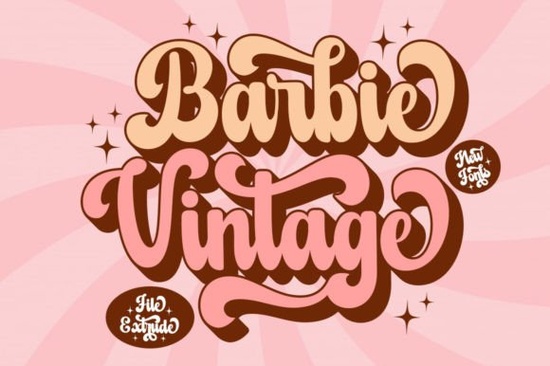
If you are looking for a retro typeface that adds instant depth to posters, logos, or print-on-demand merch, the Barbie Vintage Extrude Font gives you a ready-made shadow layer that saves hours of manual editing. Instead of building faux 3D effects in your design software, you get a clean, pre-drawn extrude that lines up perfectly with its matching base letters. This makes it especially useful for crafters, small shop owners, and graphic designers who want consistent vintage styling without the technical hassle.
What makes this retro display font stand out?
The extrude layer features smooth, rounded terminals and a slightly condensed structure that echoes mid-century signage. Because the shadow is already separated from the main glyph shapes, you can change its color or apply texture overlays without disturbing the primary text. The result is a playful, nostalgic feel that works well on t-shirts, sticker sheets, and social media banners. Many creators find that pre-cut display fonts like this one keep production workflows moving quickly when testing new product lines.
How do you pair the extrude layer with the main typeface?
When setting up your file, keep these layering tips in mind:
- Place the extrude layer on the bottom and lock it to prevent accidental shifts.
- Use a slightly darker tone for the shadow to maintain readability.
- Add a thin stroke to the top layer if you need extra separation on busy backgrounds.
Which projects work best with a vintage shadow effect?
Display fonts with built-in depth are naturally suited for headlines, packaging labels, and short promotional phrases. They tend to lose clarity when scaled down for body copy, so reserve them for titles and featured product names. Print-on-demand sellers often use this style for retro travel posters and nostalgic quote graphics. If you are building a collection of matching assets, you can explore hand-drawn lettering styles that complement the chunky vintage aesthetic without competing for attention.
Crafters working with cutting machines will also find the extrude layer helpful. Since the shadow is already vectorized as a separate shape, you can cut it from contrasting vinyl and weed it independently. This reduces layering errors and keeps your final application clean. For educational or kids-focused products, some creators pair bold display headers with simple learning typefaces to balance playfulness with readability.
How do you get the best results in your design software?
Whether you work in Illustrator, Photoshop, or Canva, the layering process stays fairly consistent. Import both font files, type your phrase twice, and assign one instance to the regular style and the other to the extrude style. Nudge the shadow layer slightly down and to the right if you want a more pronounced effect, or keep it perfectly aligned for a flat retro look. Save your color swatches as a shared palette so your brand materials stay consistent. When you are ready to expand your typographic toolkit, you can always return to the main collection page for this display font to check for updates.